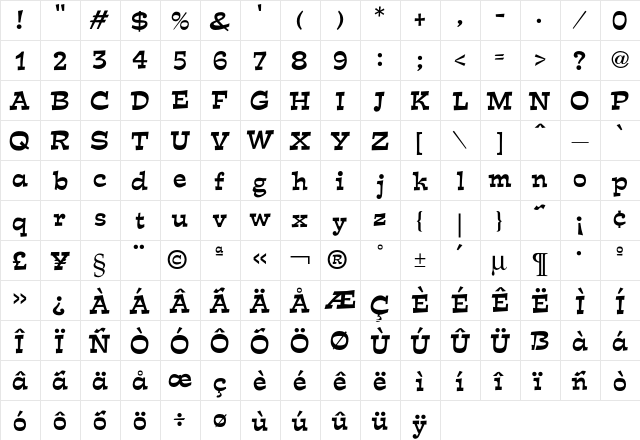
Estro Font
Design Context for Estro Typeface
Estro takes a measured approach to typography — its balanced proportions and neutral character make it a reliable workhorse for both digital and print work.